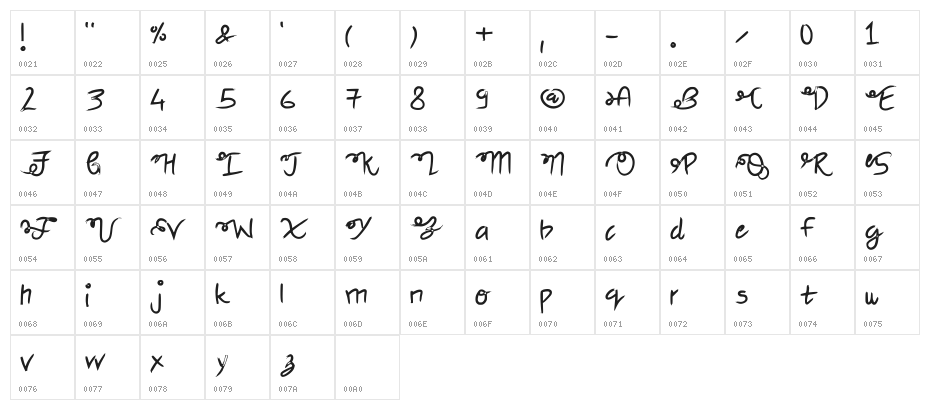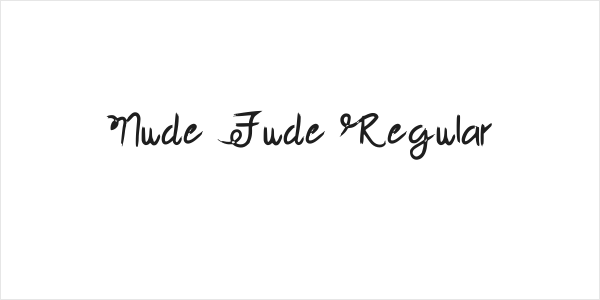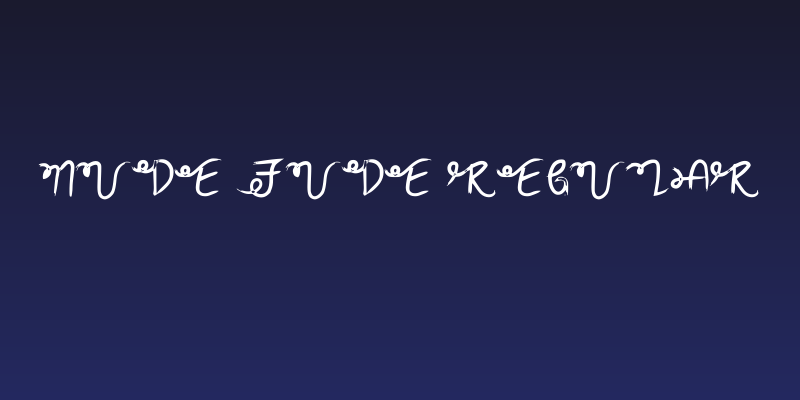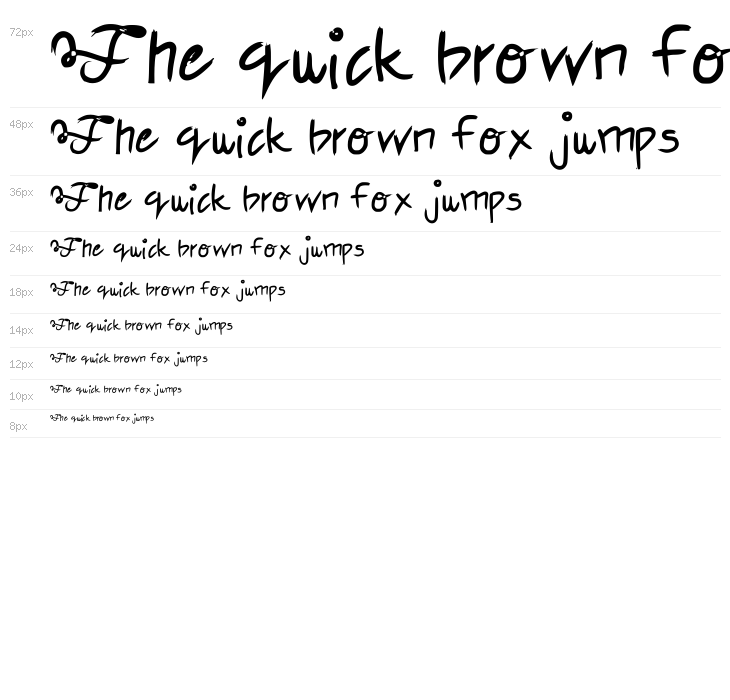
Nude Fude Regular Font
Nude Fude Regular Description
This font features a whimsical and playful design, characterized by its decorative and flowing strokes. The uppercase letters are adorned with intricate swirls and loops, giving them an ornate appearance. The lowercase letters maintain a more casual and handwritten style, with a slight slant and varying stroke thickness. The numerals are bold and consistent with the overall playful theme, while the special characters incorporate unique and artistic elements. This font's distinct style makes it suitable for creative and artistic projects, where a touch of elegance and fun is desired.
| Use Case | Headlines, Artistic projects, Invitations |
| Proposed Projects | Ideal for greeting cards, invitations, artistic posters, and branding that requires a playful and elegant touch. |